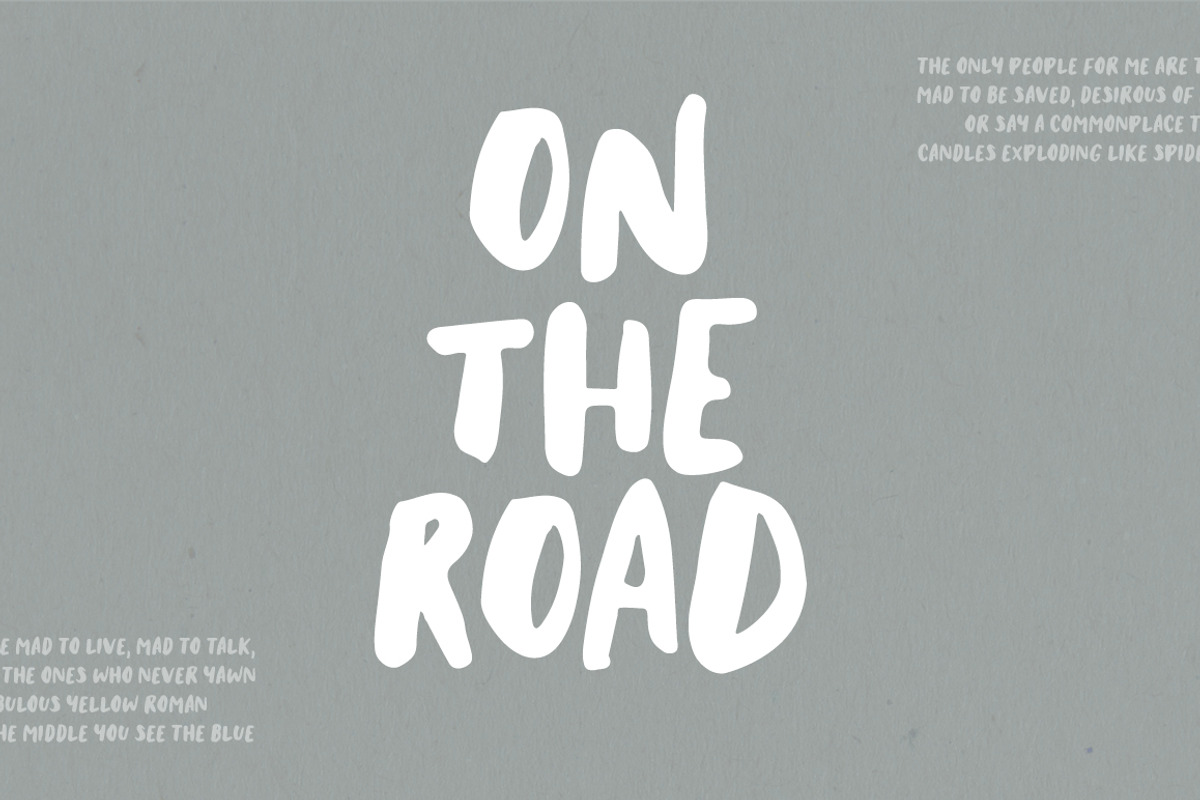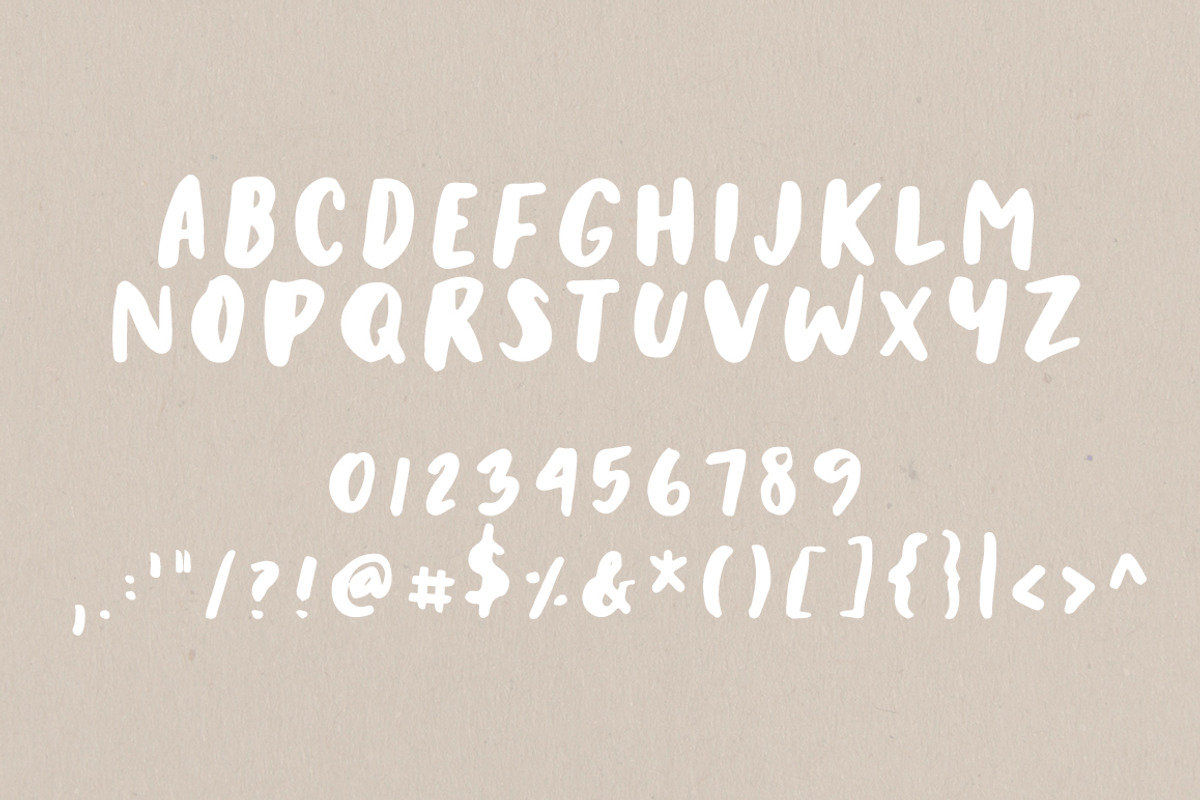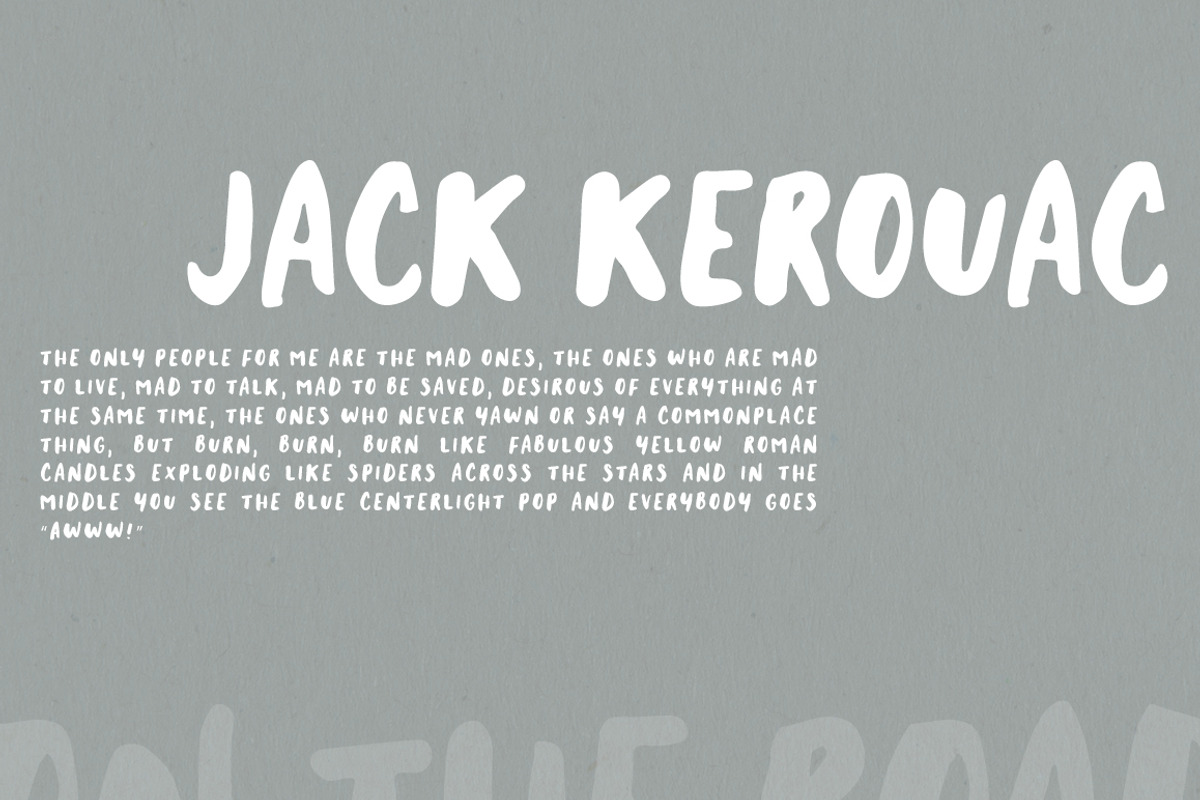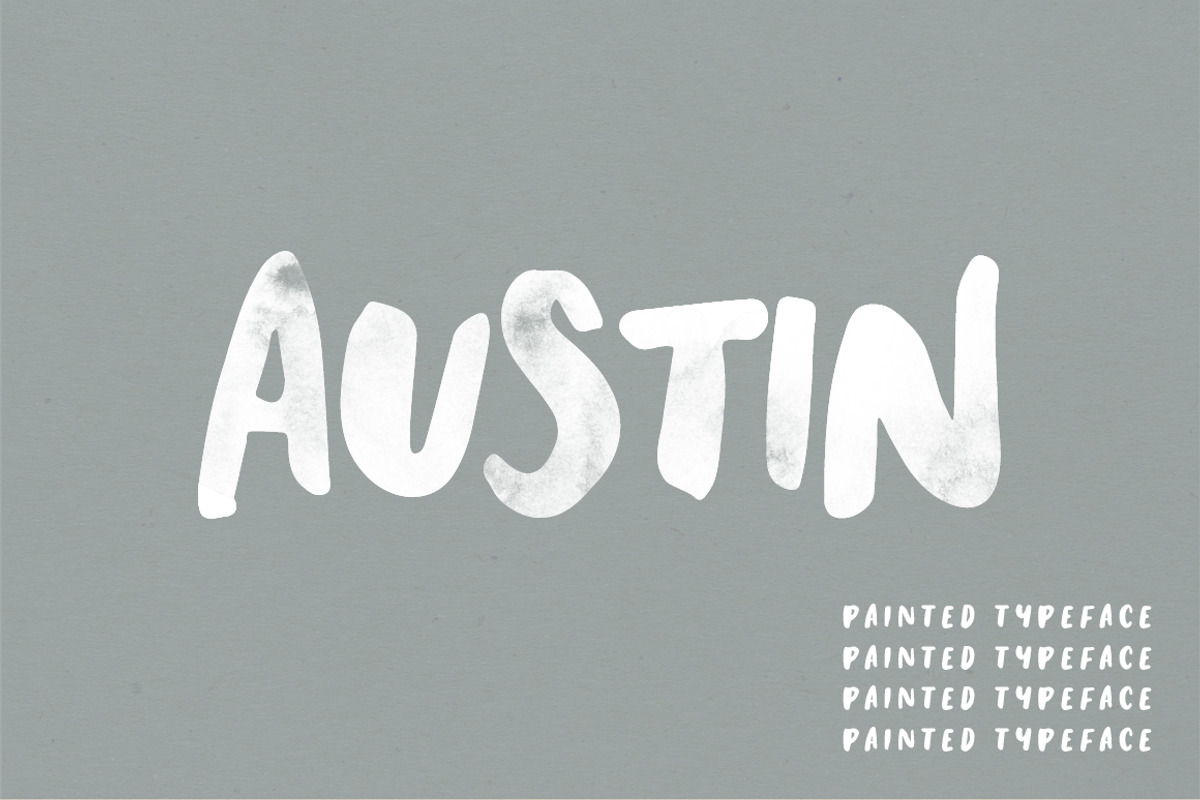
Austin | A Hand Painted Typeface
Austin | A Hand Painted Typeface by Jen Wagner Co is a font selected for branding, posters, packaging, typography.
- Alternate letter styles are available via the capital/lowercase options, making this font perfect for weddings, logos, invitations, branding
Why Austin | A Hand Painted Typeface is worth a look
Austin | A Hand Painted Typeface by Jen Wagner Co fits naturally into Branding, posters, packaging, typography.